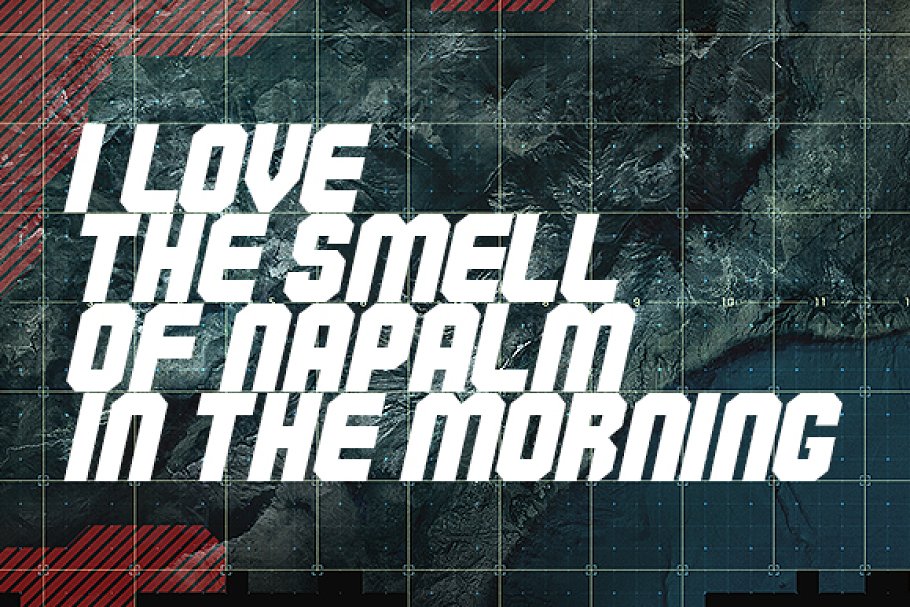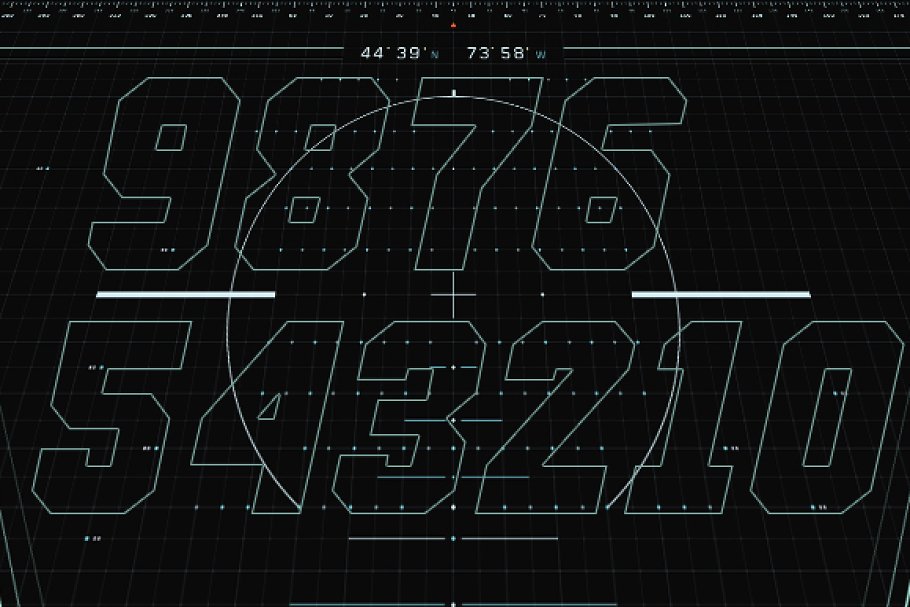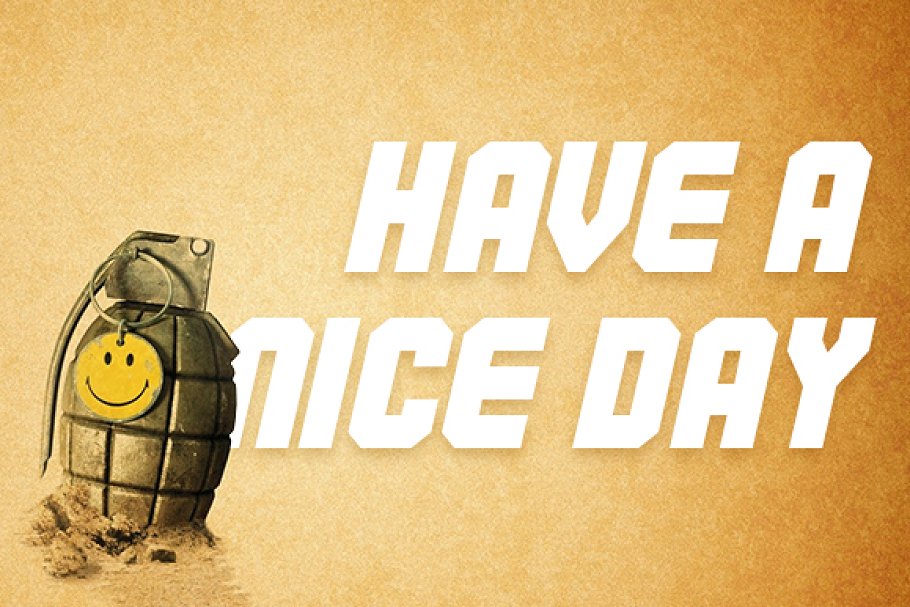
Commando, quite easily one of the most popular war typefaces kicks some serious ass! This unique armytype font contains 26 solitary characters and 10 distinct numerals, This font is perfect for all war, military, army and worst case scenarios including courageous logo styles, valorous headers, typographic posters or even when you just need to get to da choppa!Available in the brave TTF format